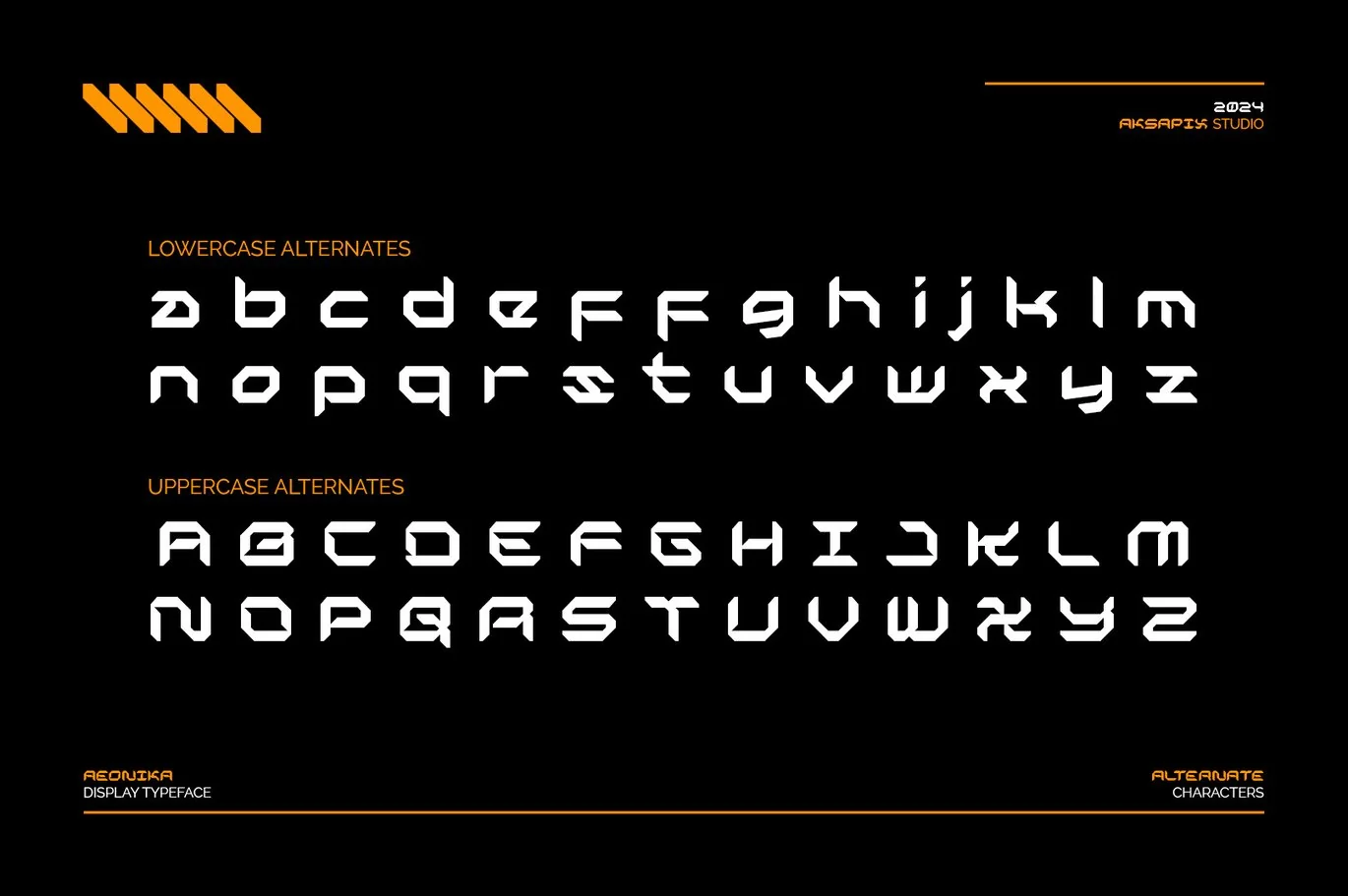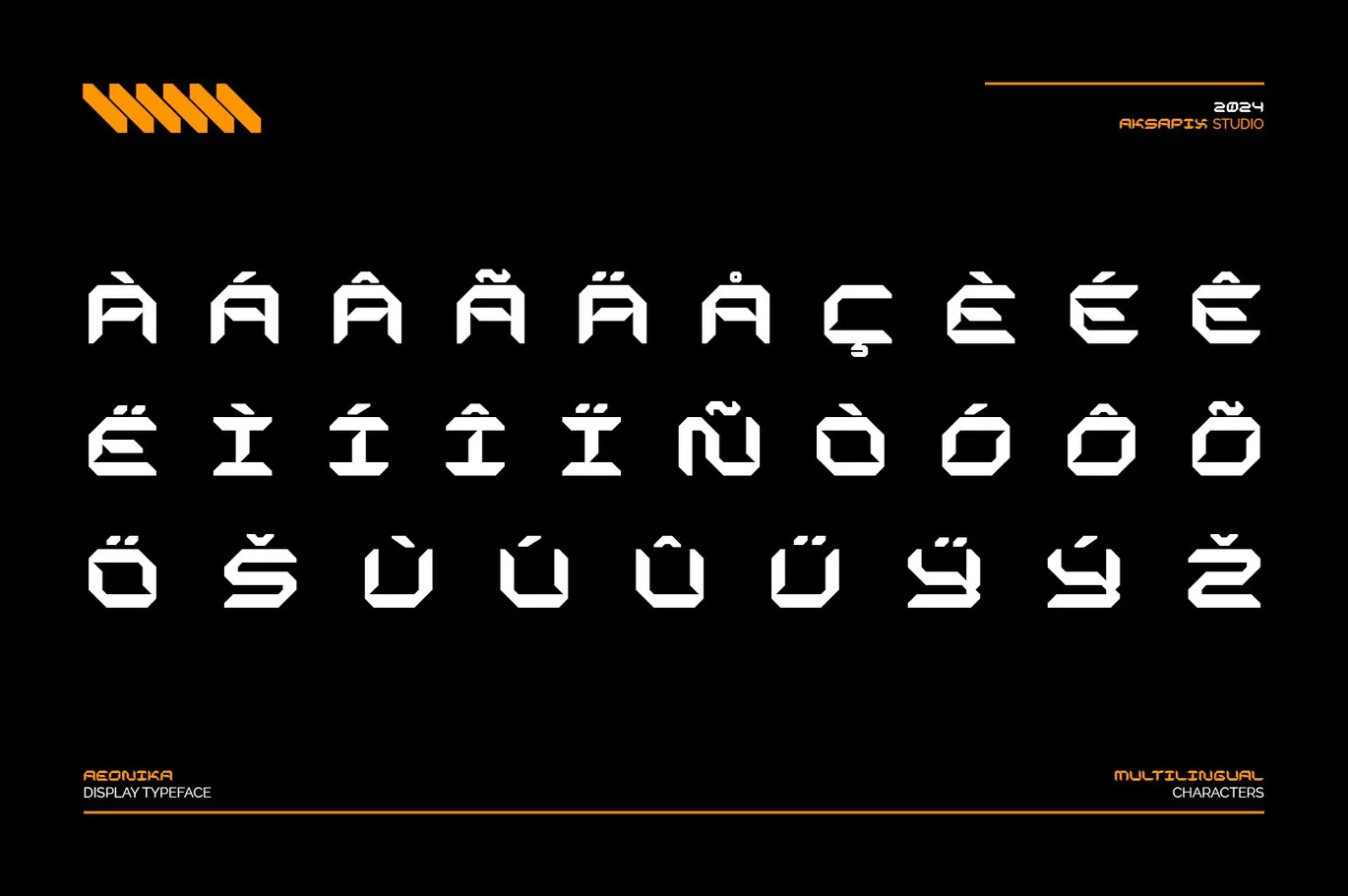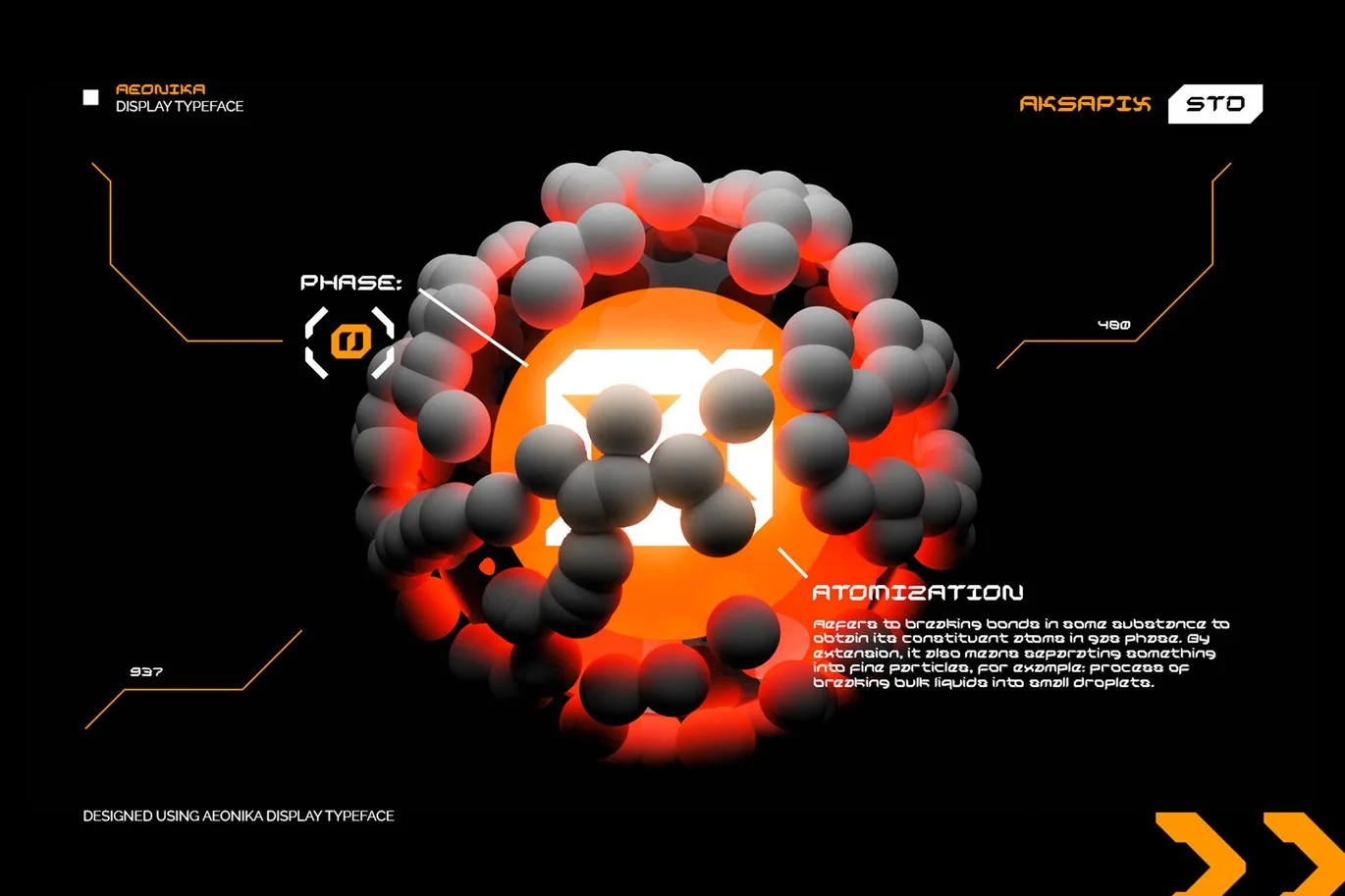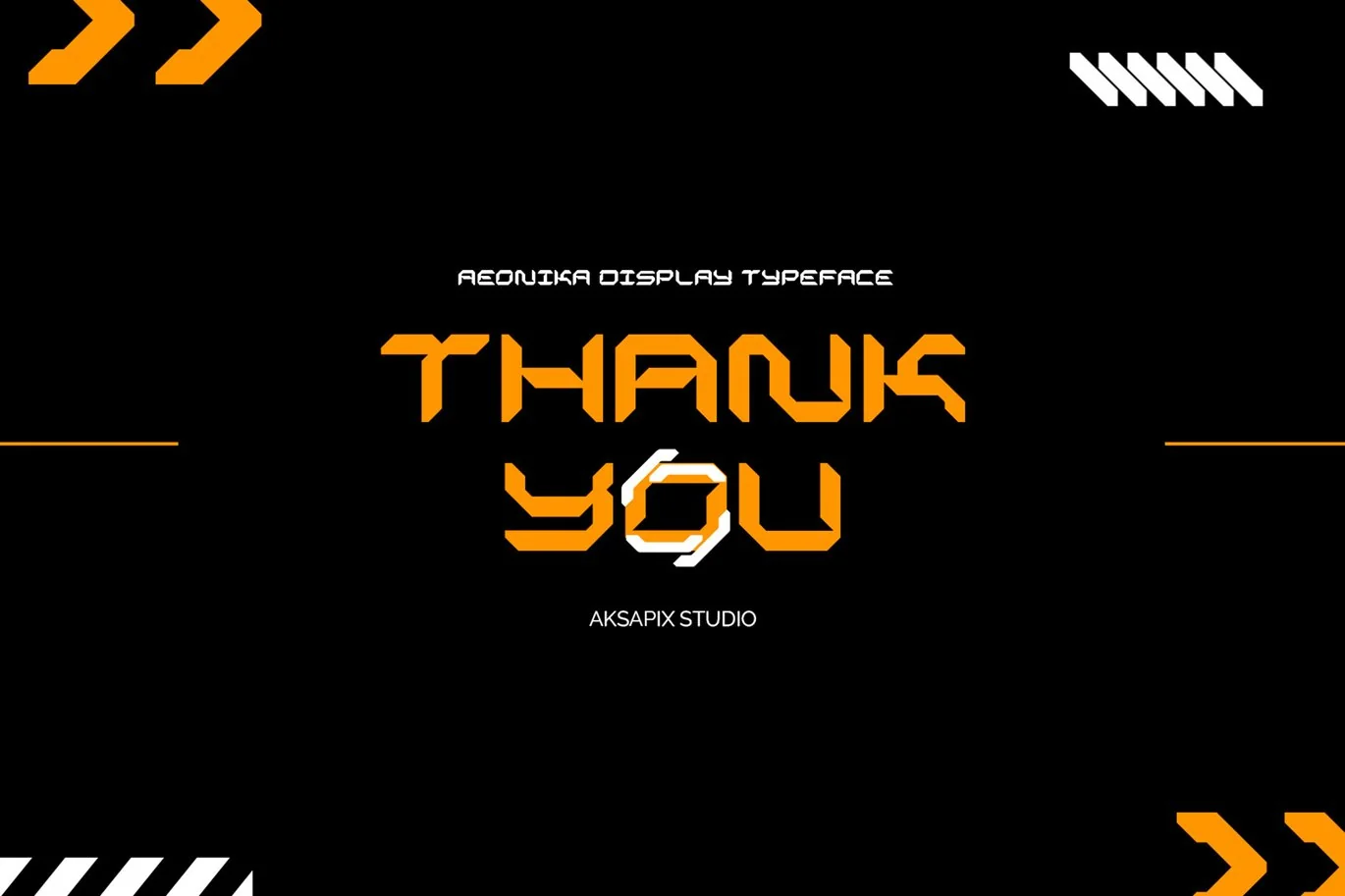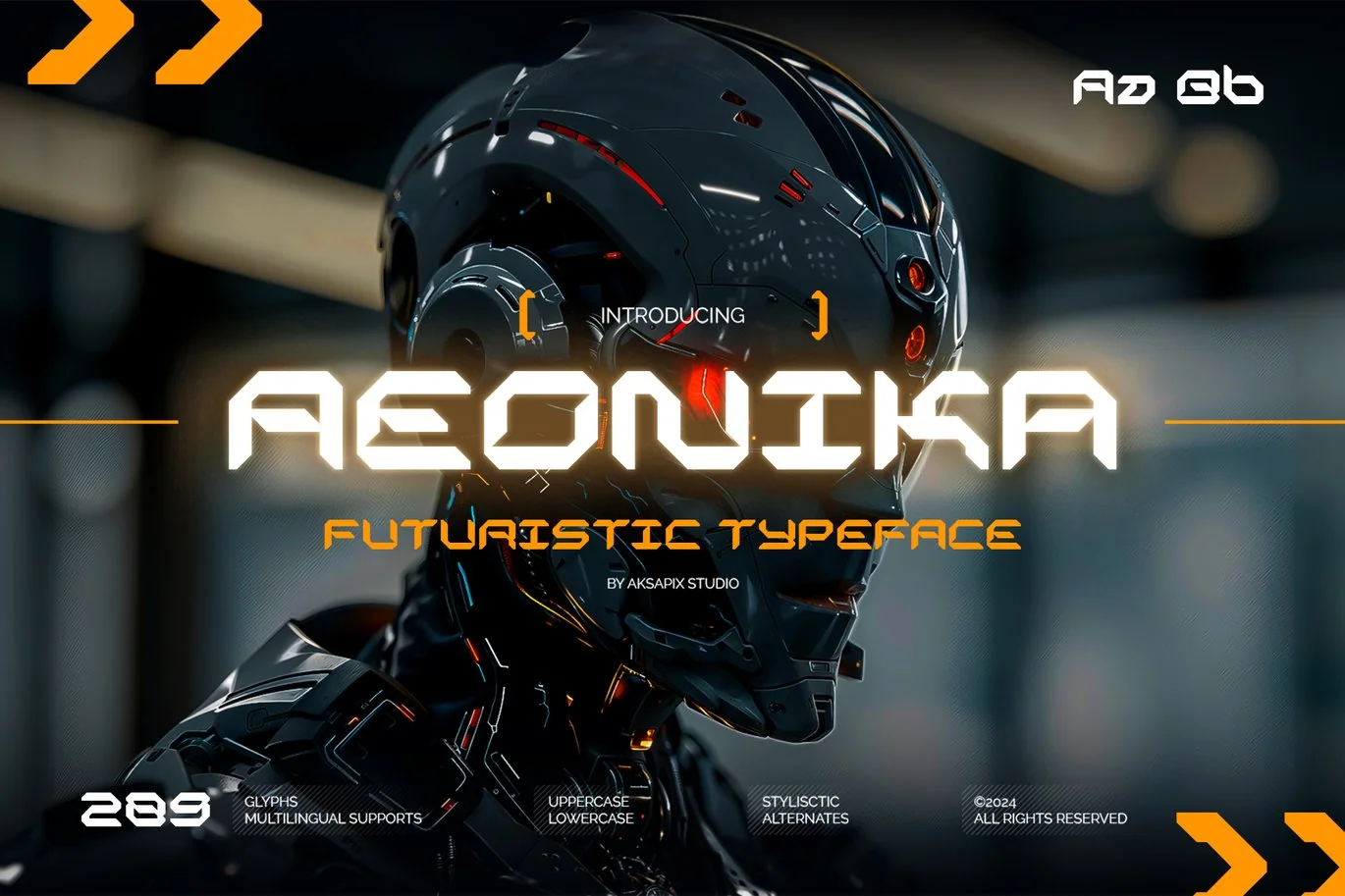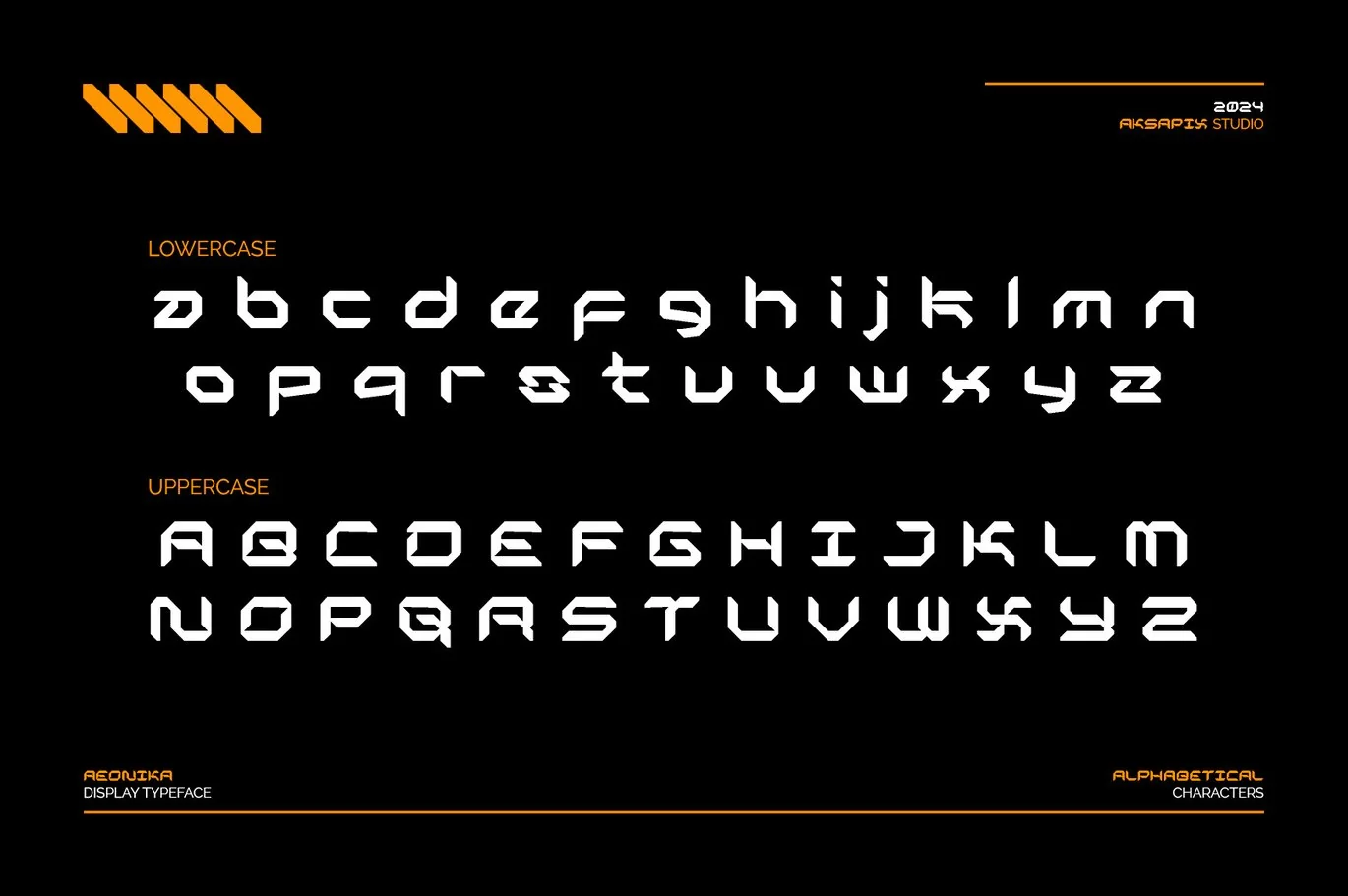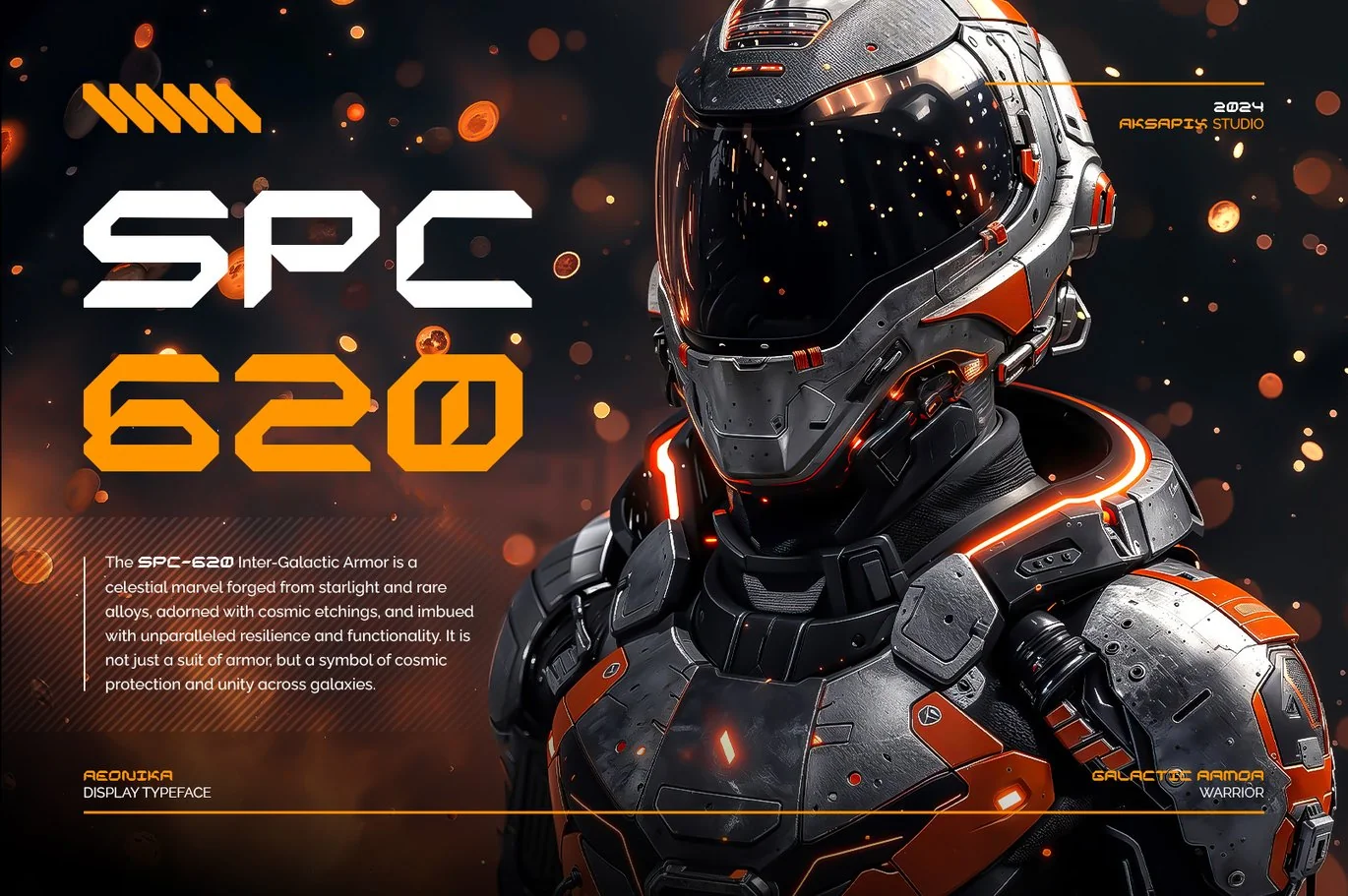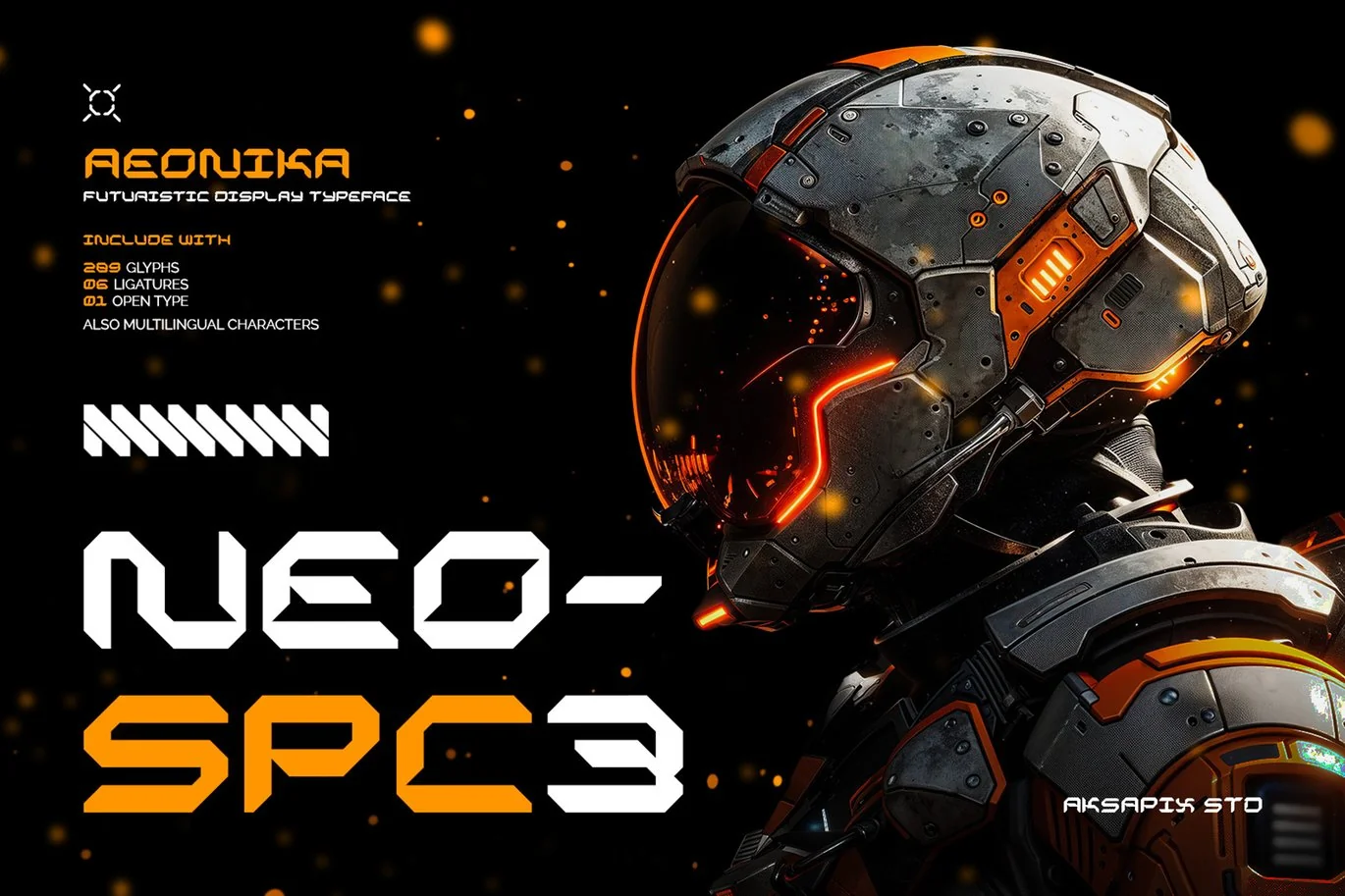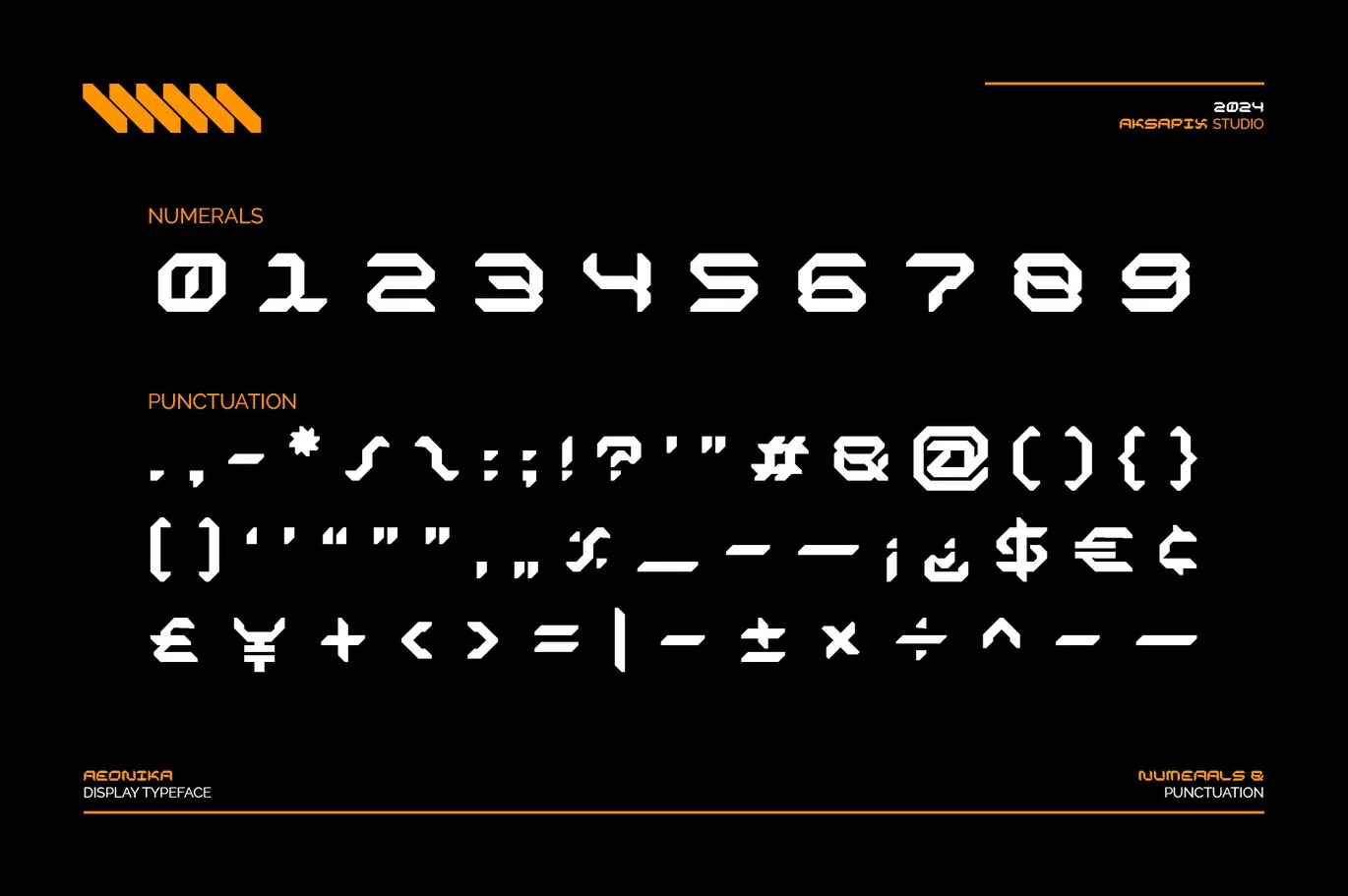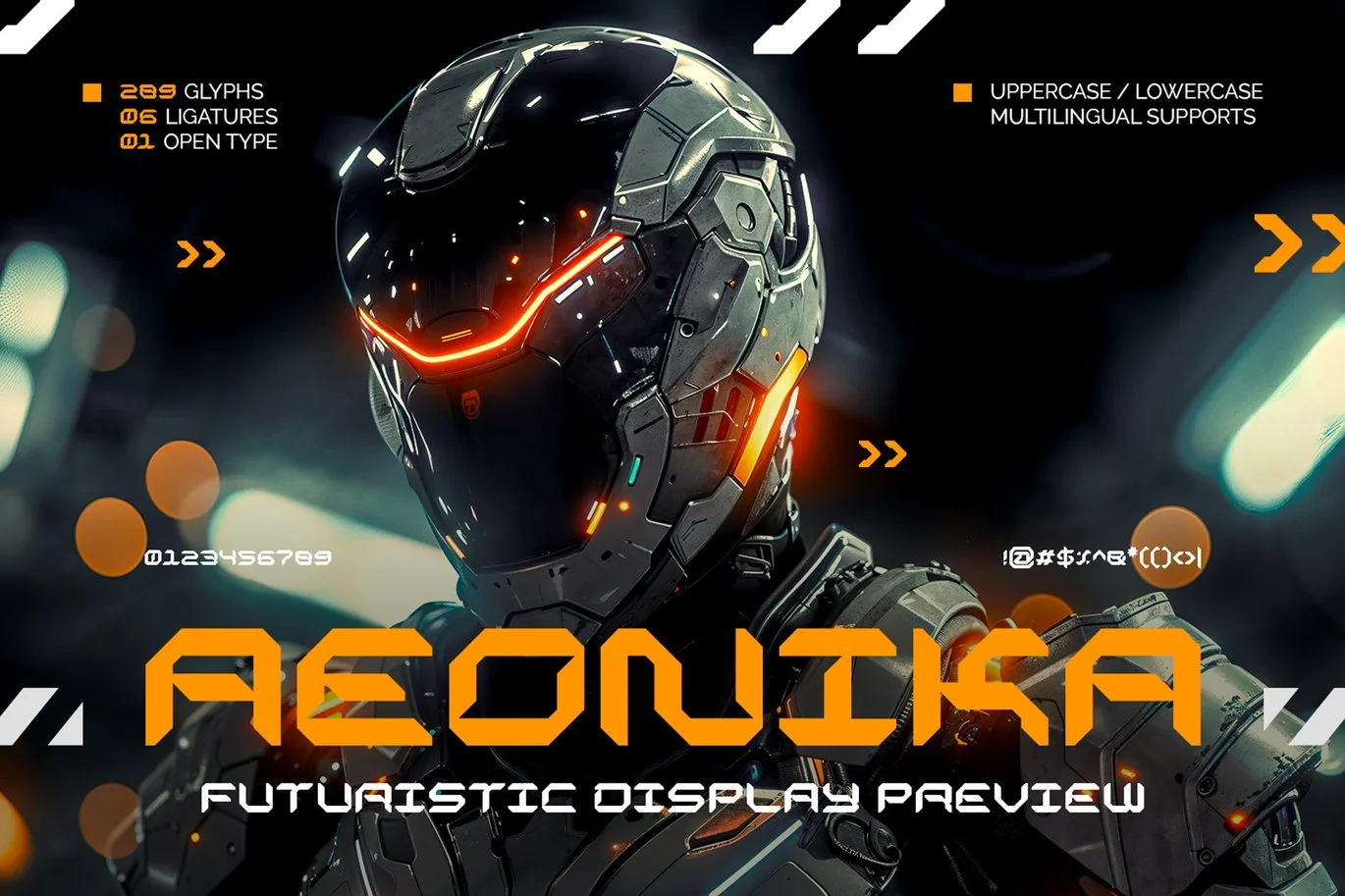
Aeonika – Futuristic Typeface
Introducing Aeonika – The Essence of Futuristic Typeface
Elevate your design projects to new dimensions with Aeonika – a cutting-edge typeface that embodies the essence of the future. Inspired by the sleek aesthetics of modern technology and innovation, Aeonika is meticulously crafted to bring a sense of sophistication and forward-thinking to your digital creations.
- Punctuation & Numbers
- Stylistic Alternates: Unlock even more creative potential with Aeonika’s stylistic alternates, which provide variations of certain characters for added visual interest and flexibility in your designs.
From branding and advertising to web design and digital art, Aeonika empowers you to push the boundaries of creativity and bring your futuristic visions to life. Embrace the future of typography with Aeonika and embark on a journey of innovation and imagination.